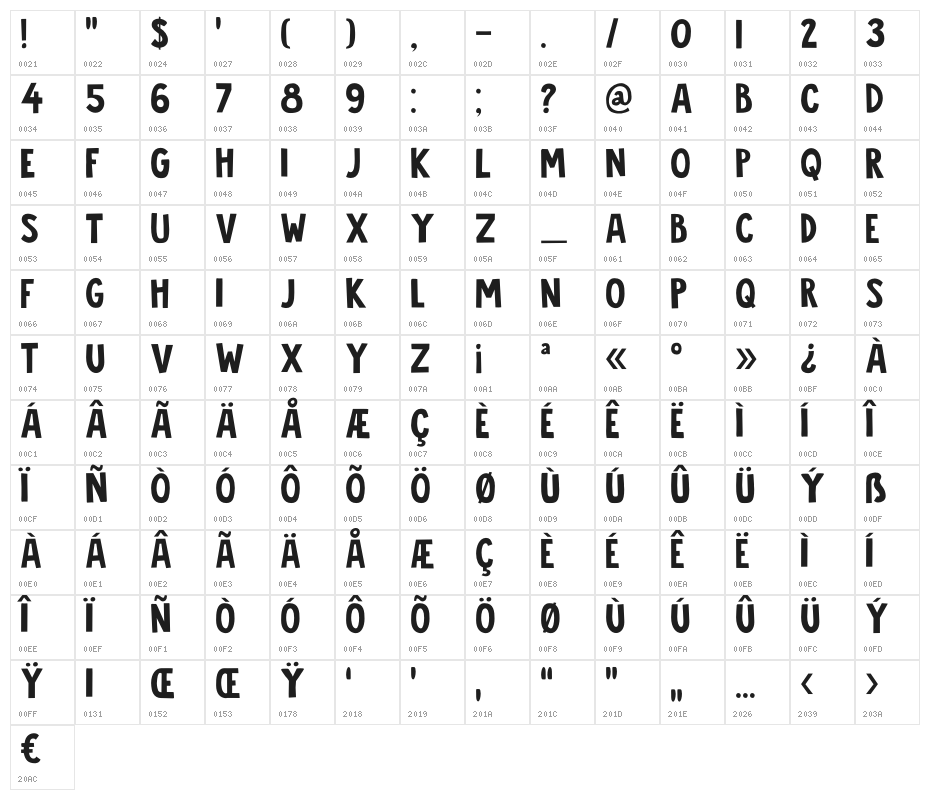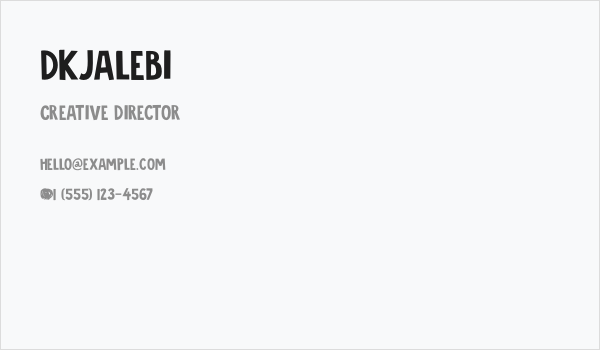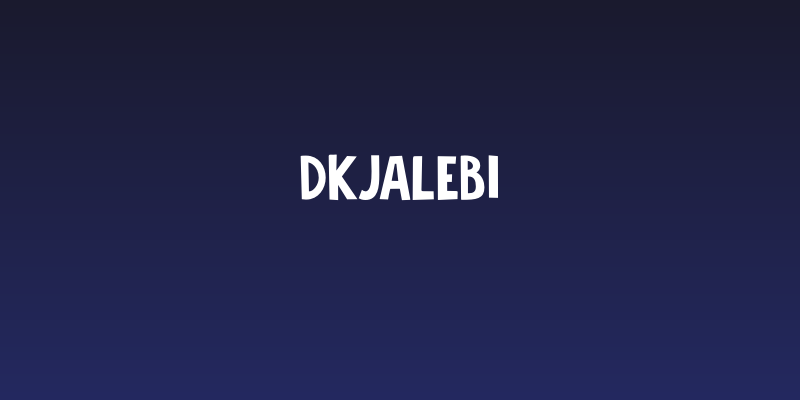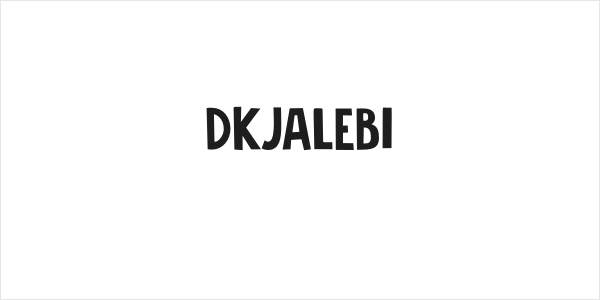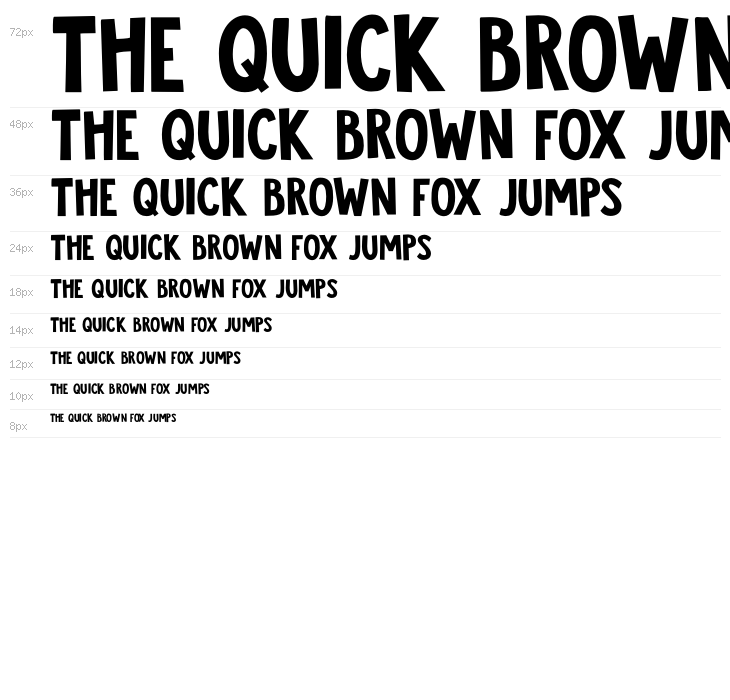
DKJalebi Font
DKJalebi Description
This font features a playful and bold style with a hand-drawn appearance. The characters are thick and slightly irregular, giving them a whimsical and informal look. The uppercase letters are prominent and eye-catching, while the lowercase letters maintain a consistent style. The numbers are bold and match the overall aesthetic, making them suitable for attention-grabbing designs. Special characters are included, maintaining the same playful and bold characteristics. This font is ideal for projects that require a fun and lively touch.
| Use Case | Headlines, Posters, Branding |
| Proposed Projects | Perfect for children's books, playful branding, posters, and creative invitations. |